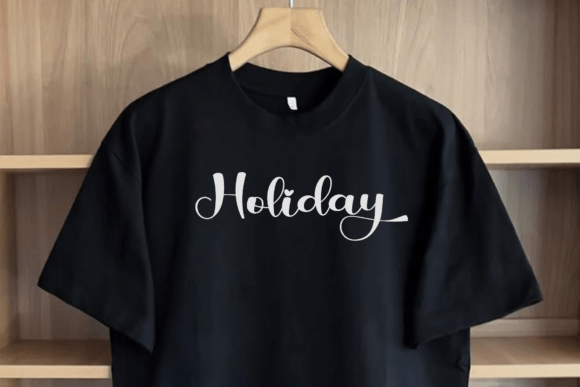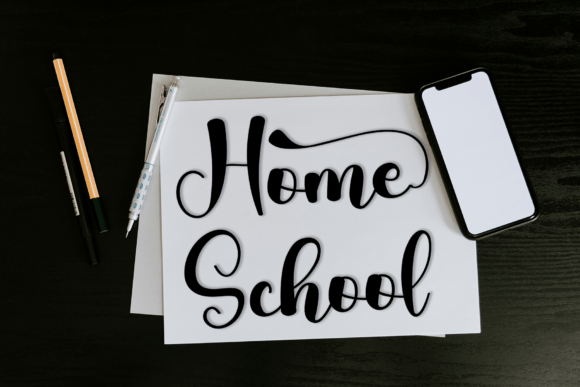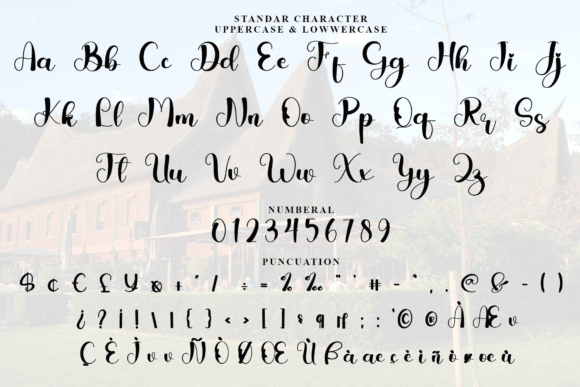
Lovely Home Font
About the Lovely Home Font
Presenting Lovely Home Font, a unique and stylish typeface that will make your work stand out. Lovely Home is a sweet and cursive handwritten font. This gentle font will look gorgeous on a variety of design ideas. It will add a joyful and romantic touch to each of your projects! Perfectly fit for branding, logo, wedding things, greeting cards, fashion, lookbook, marketing promotion, and any time you want your design to look fancy and elegant but still casual.
Lovely Home’s flowing script is ideal for headlines, short text blocks on invitations or packaging, and branding elements where a touch of friendly elegance is desired. It excels in applications like wedding stationery, logos for boutiques, or short quotes on social media graphics. However, its cursive nature makes it unsuitable for body text or UI elements; legibility suffers in extended use.
Consider pairing Lovely Home with a clean sans-serif like Montserrat for a balanced contrast, or a classic serif such as Playfair Display for a more traditional feel. For a playful look, a geometric sans-serif like Futura could work well. These pairings provide readability where Lovely Home may fall short.
The font’s overall personality is best described as charming and approachable, with a touch of sophistication. It’s perfect for brands that project warmth, creativity, and a slightly romantic aesthetic.
Lovely Home Font Usage Examples
Lovely Home Font Example